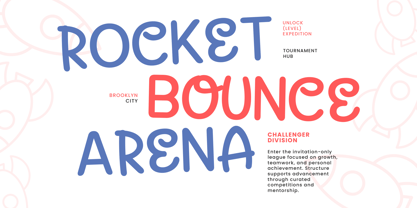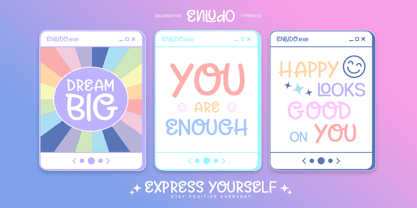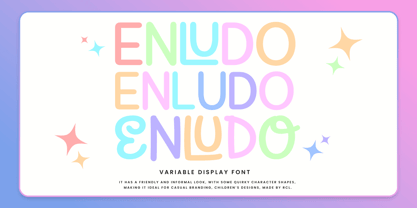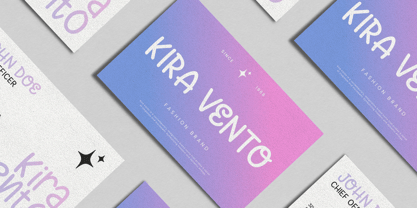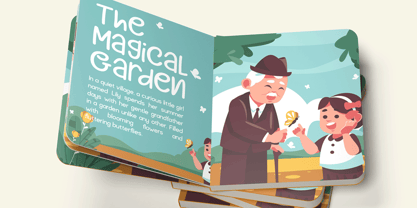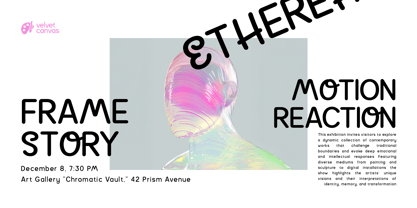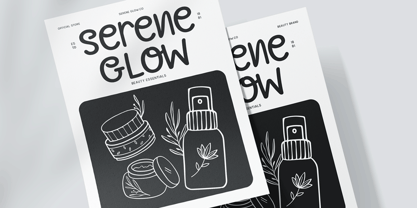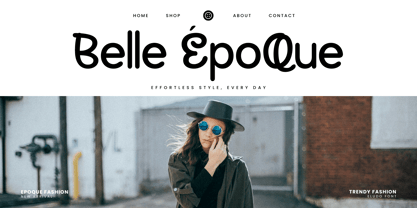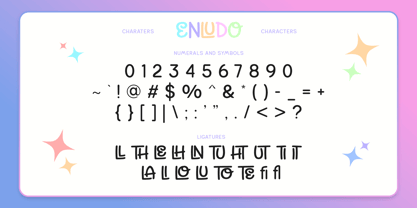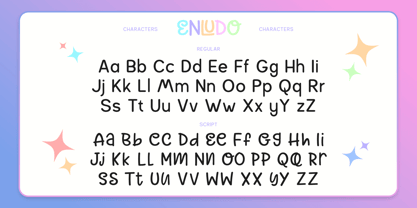
Enludo
by Jafar07
The Enludo Font Family was designed by Bakhrudin Ja'far and published by Jafar07. Enludo contains 2 styles and family package options. More about this family
Enludo is a bright and joyful font duo that combines a playful sans-serif with a charming handwritten script. Designed to bring fun and color into your projects, Enludo captures the spirit of creativity and friendliness. Its cheerful curves and variable thickness make it perfect for brands that want to feel lively, approachable, and modern. This typeface duo includes both Enludo Sans and Enludo Script, each carefully balanced to complement one another. The sans version features rounded corners and clean geometric forms, while the script offers a soft, organic flow that adds personality and warmth. Optimized kerning, consistent stroke contrast, and multilingual support ensure Enludo performs beautifully across print and digital use. Whether you’re designing for playful branding, kids’ packaging, lifestyle products, or social media content, Enludo adds a fresh and happy tone to any layout. Use it for logos, posters, or quotes that need a fun yet refined touch. Bring your designs to life with the joyful energy of Enludo today!